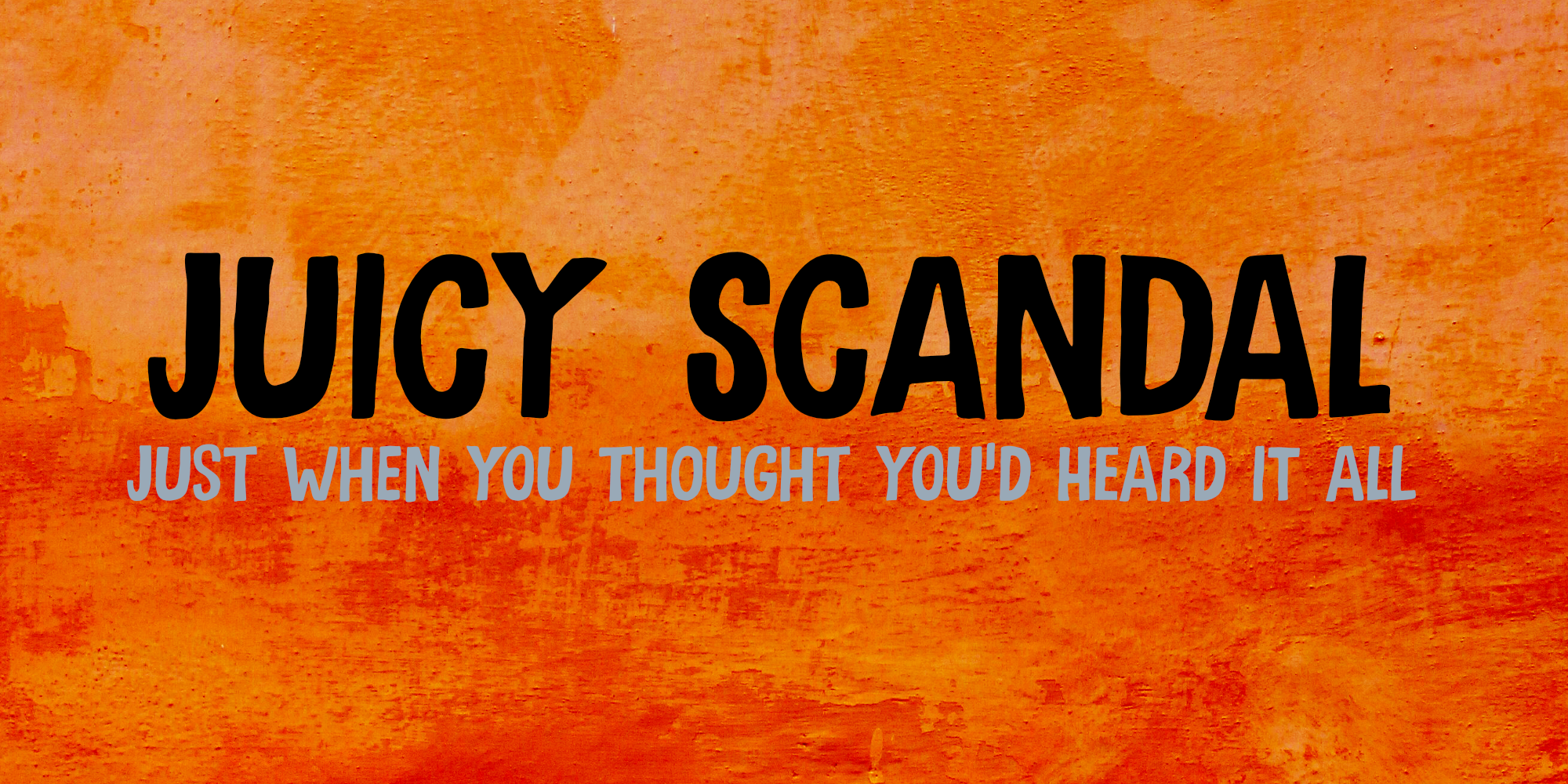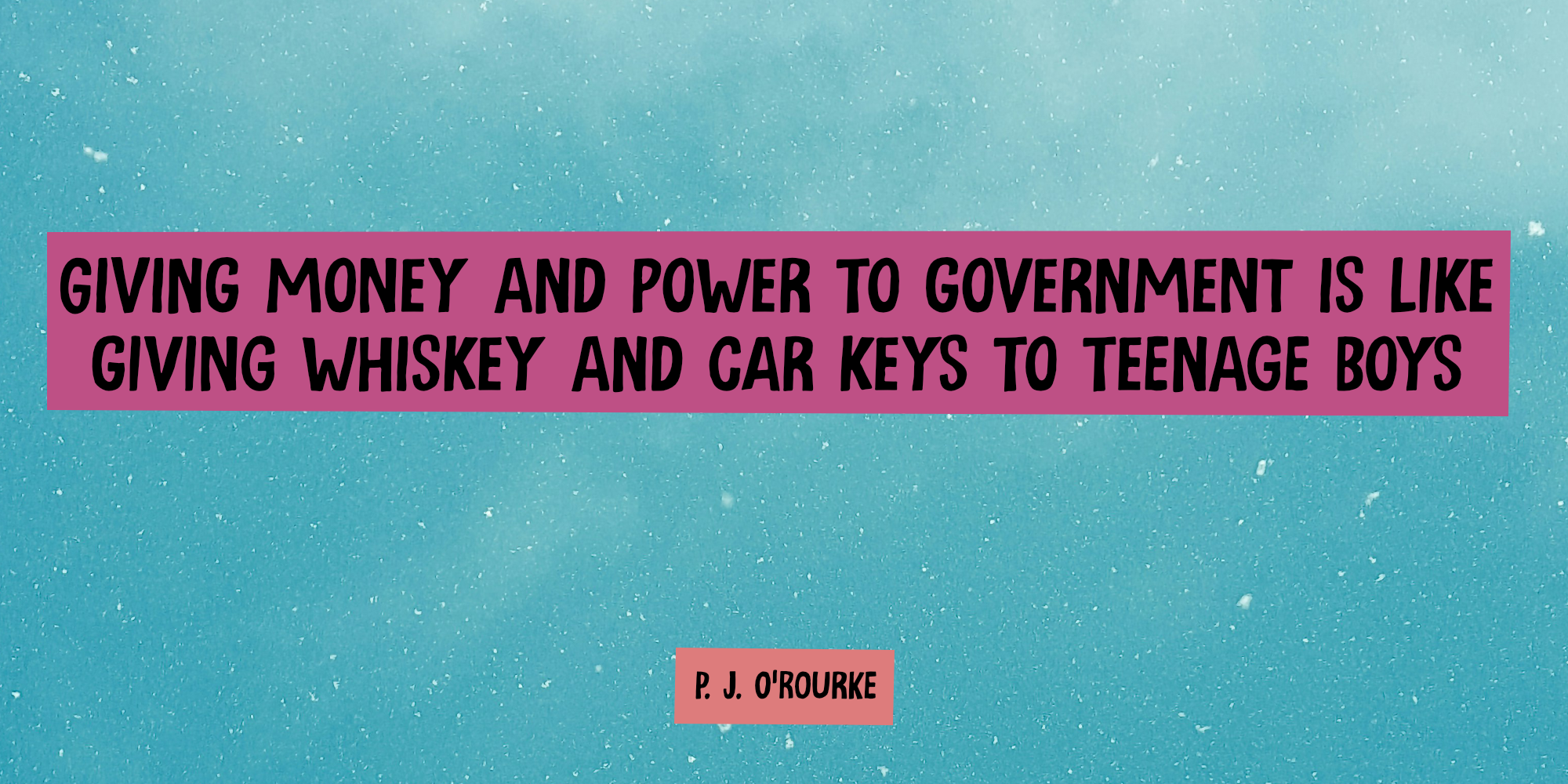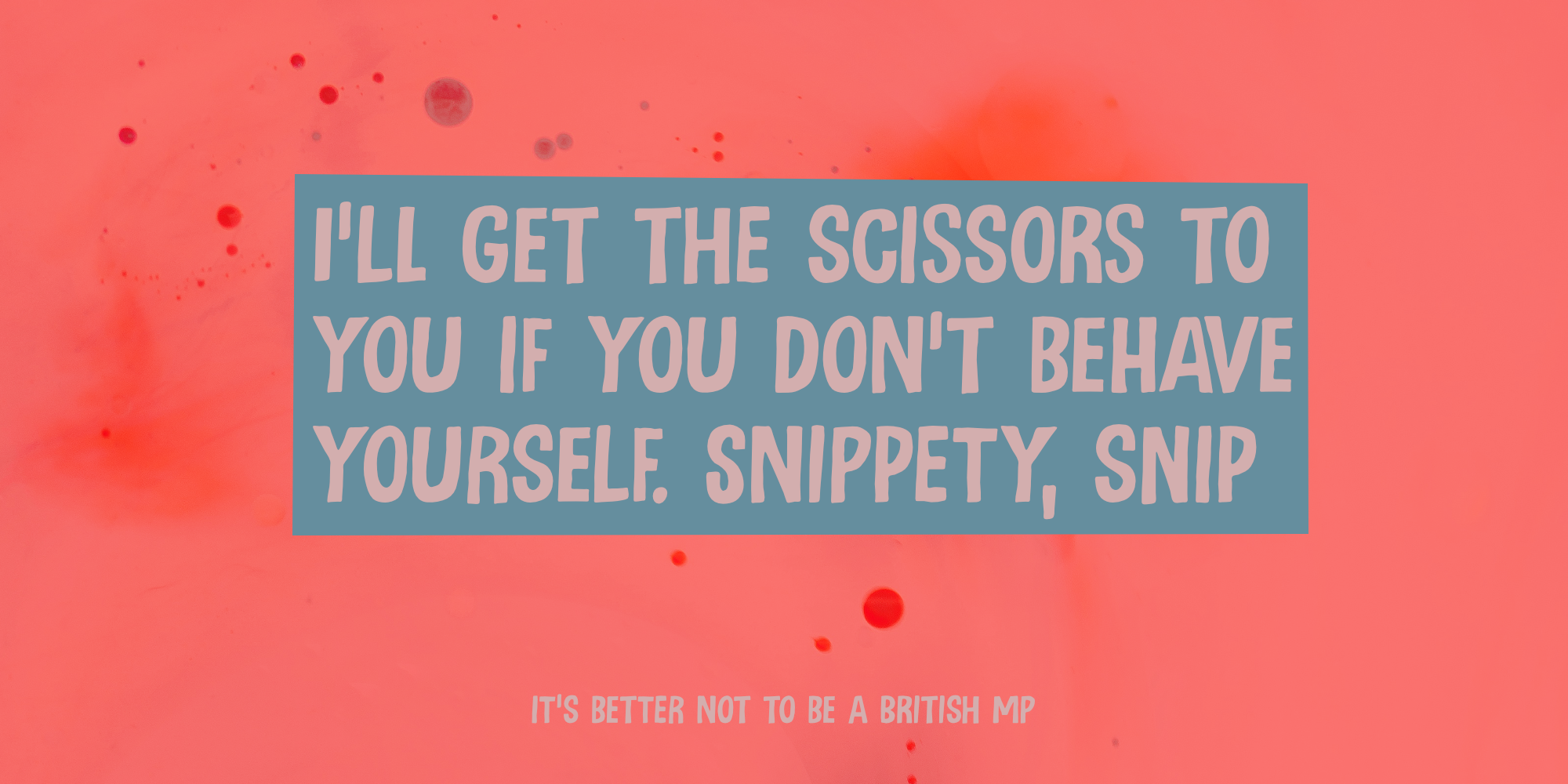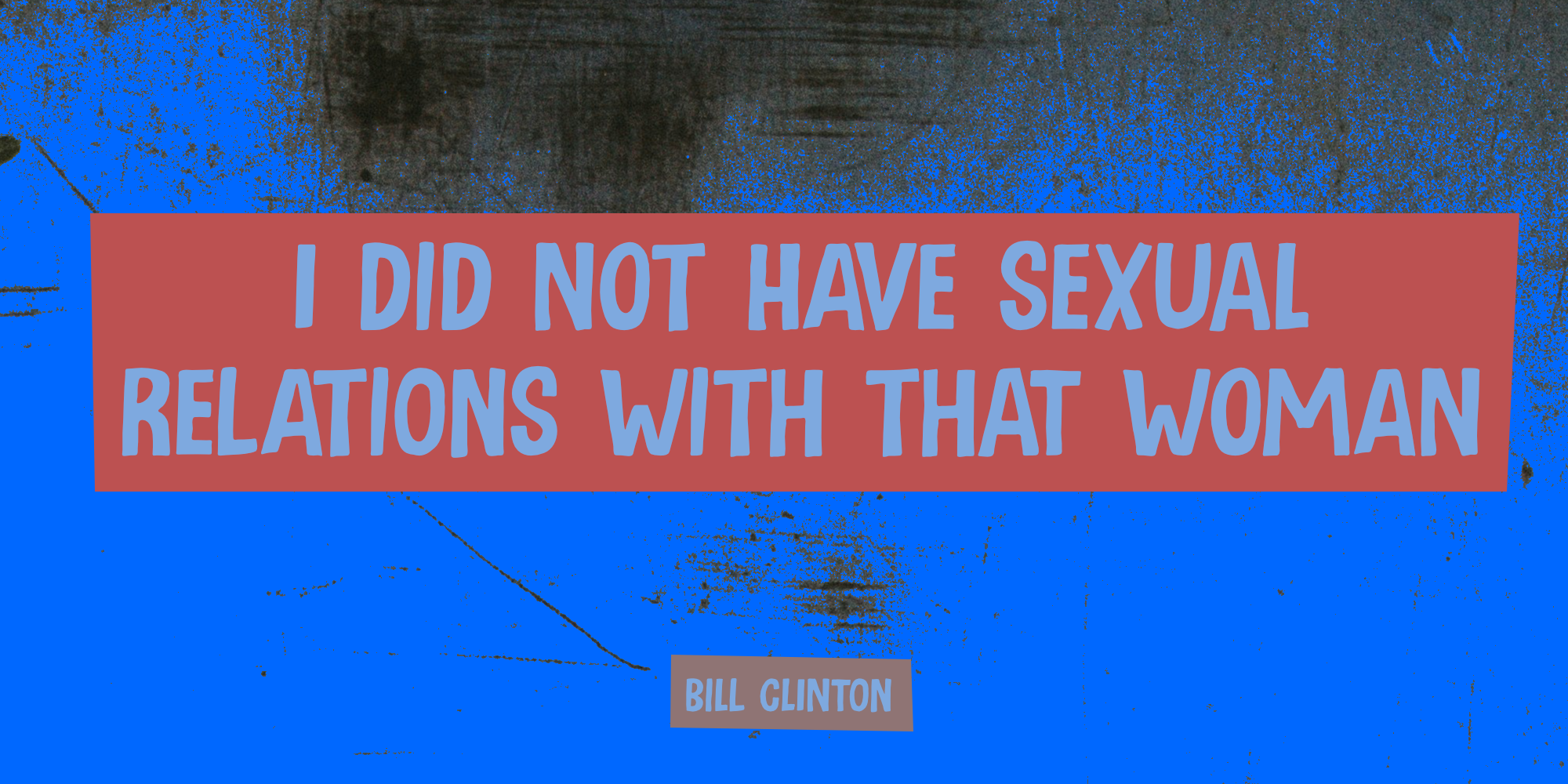
Juicy Scandal (2 fonts)
Juicy Scandal is a hand drawn font, using a roller ball pen and some course paper. This all caps font is a bit rough, but comes with an energetic vibe and a ‘no holds barred’ attitude.
Juicy Scandal speaks many languages and has a nice set of contextual alternates for you to discover.